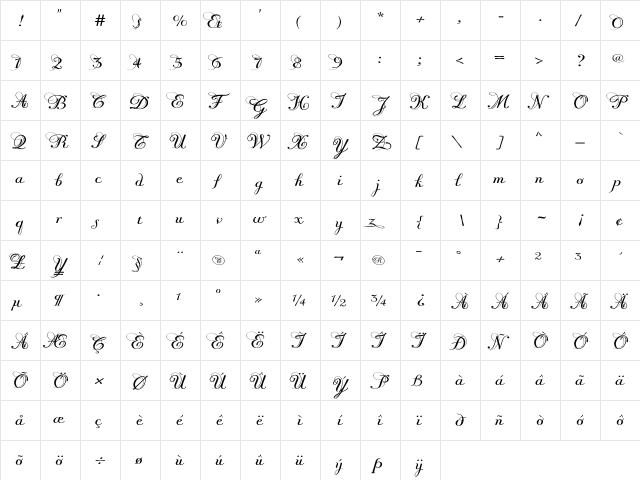
LisaBella Medium
| Designer | Gert Wiescher |
Design Context for LisaBella Typeface
LisaBella is a composed and adaptable typeface that performs quietly and consistently across a wide range of design contexts.